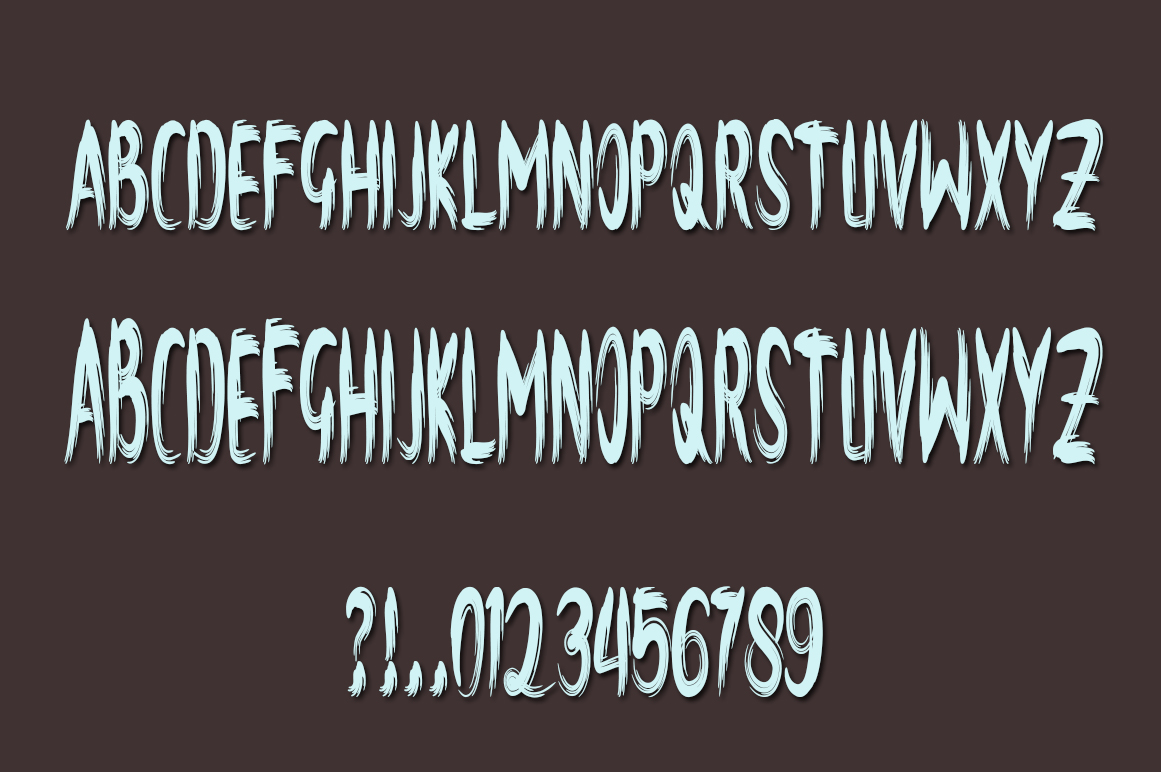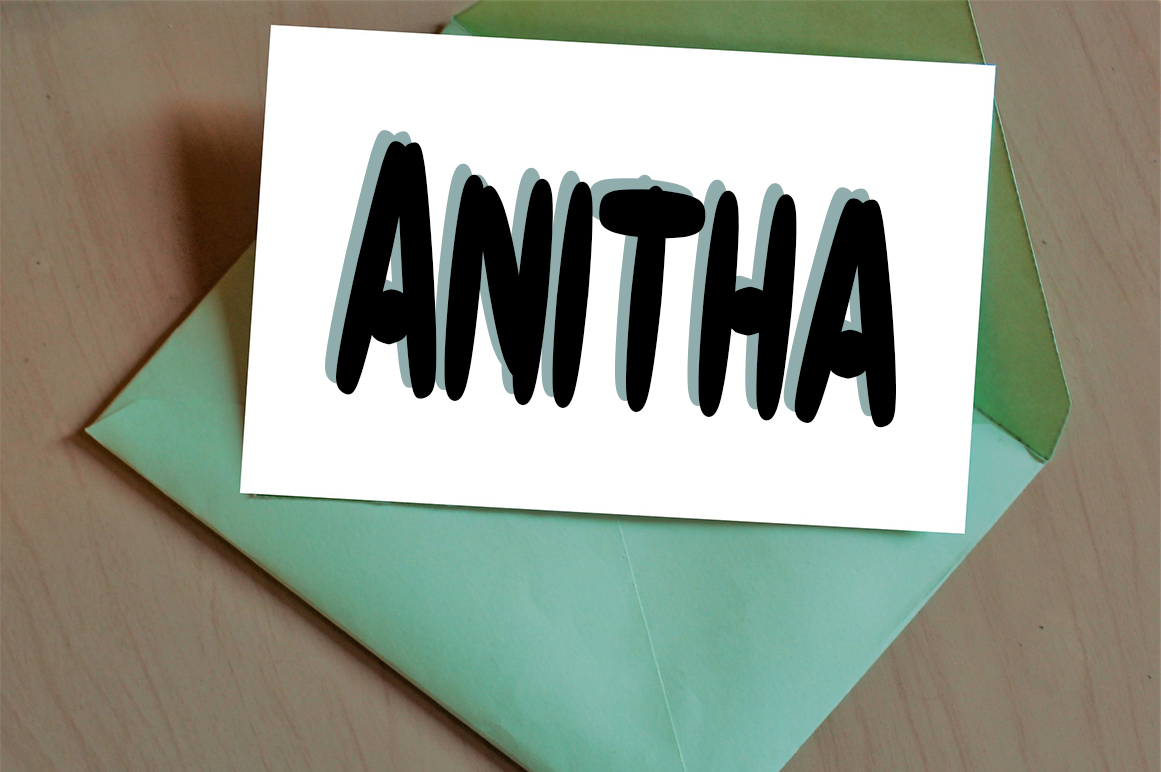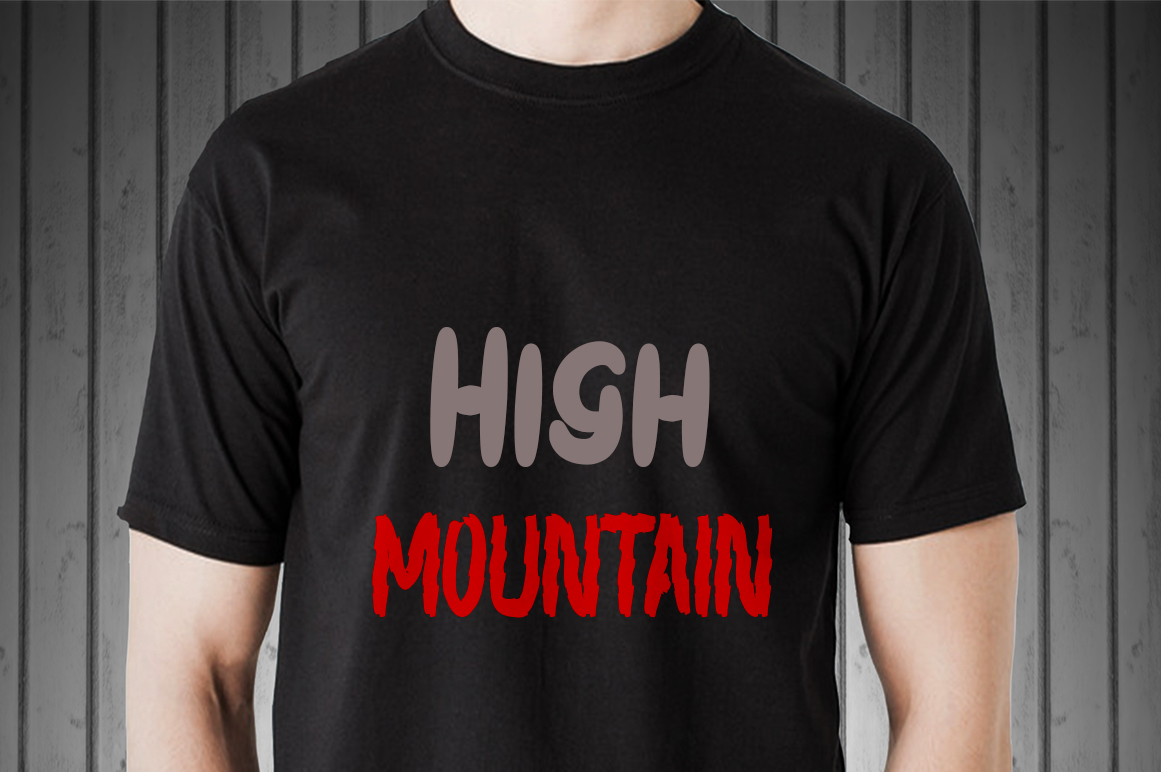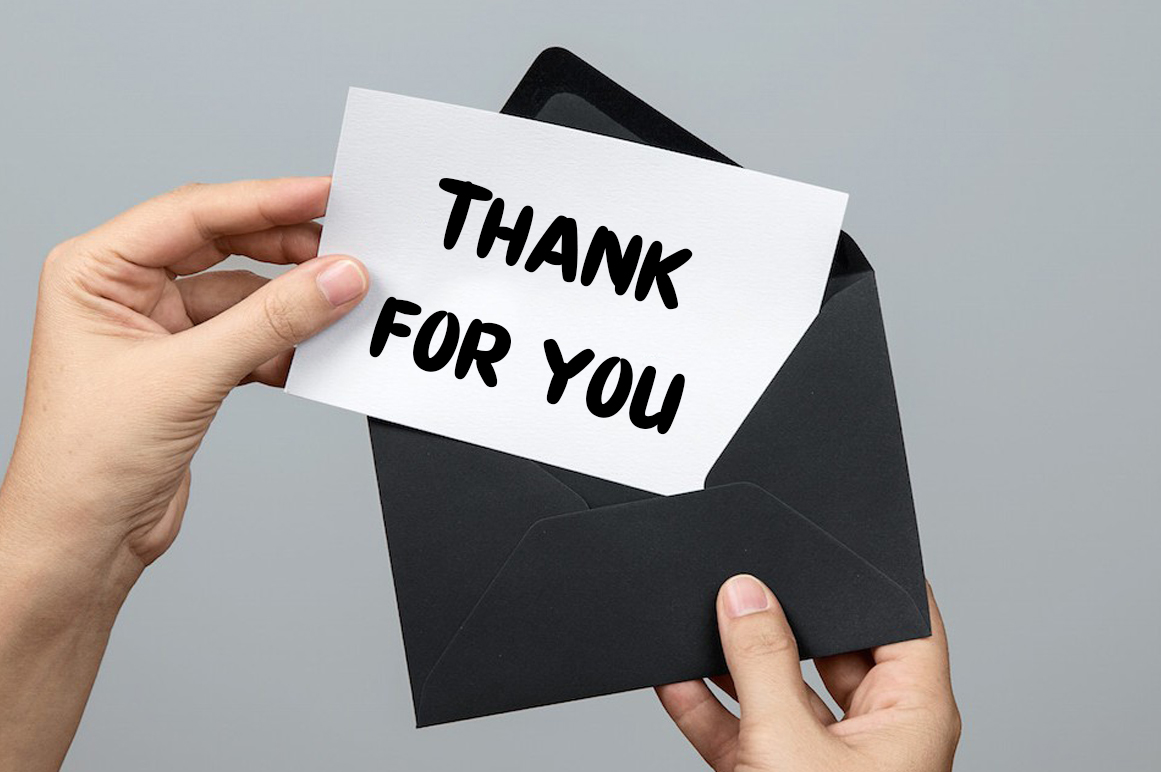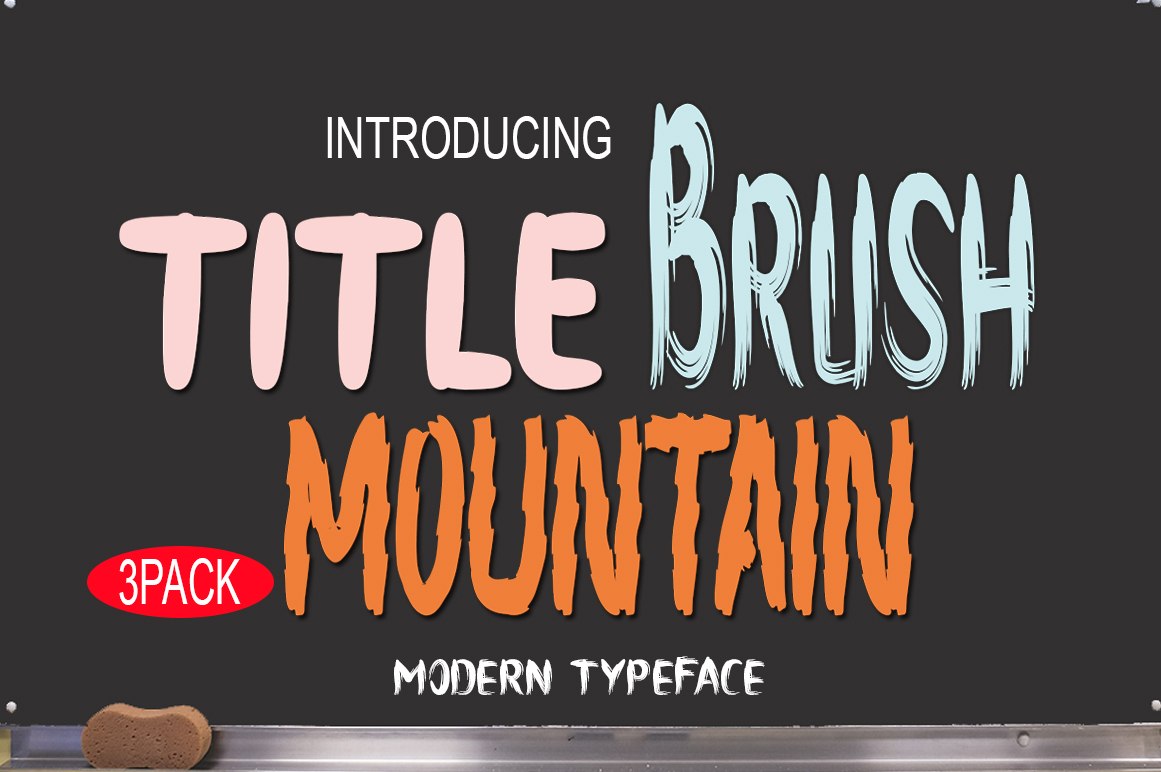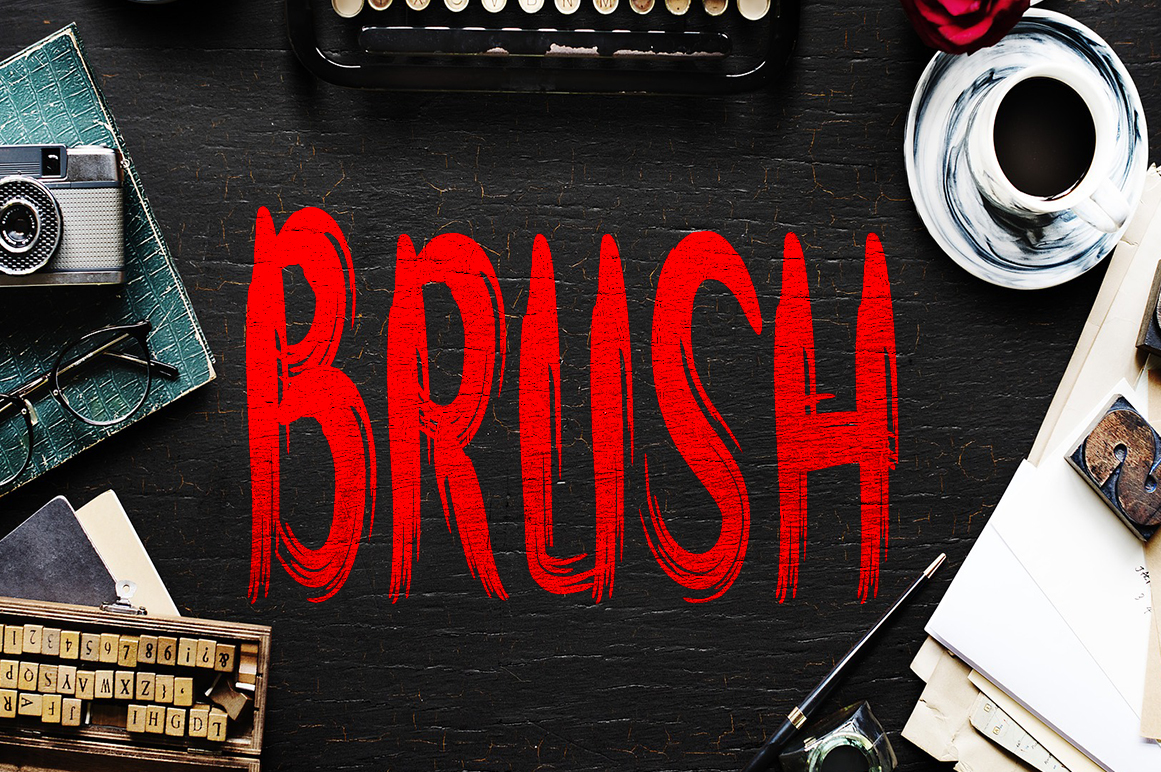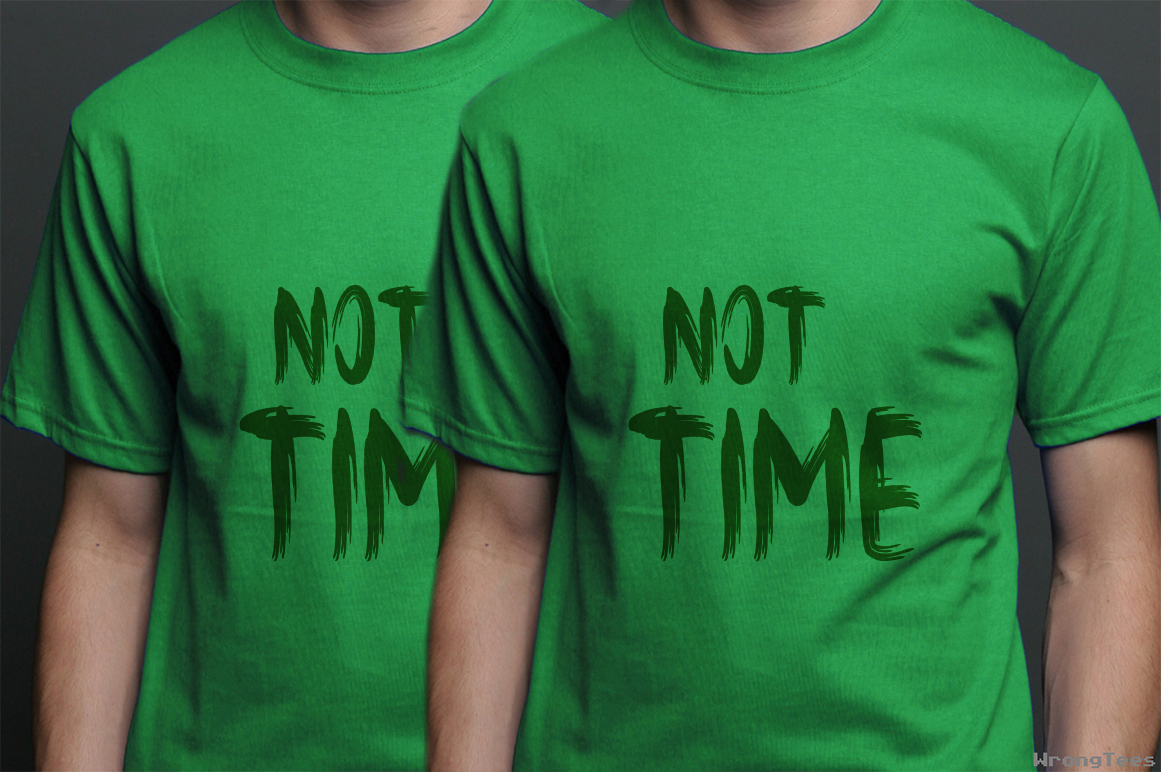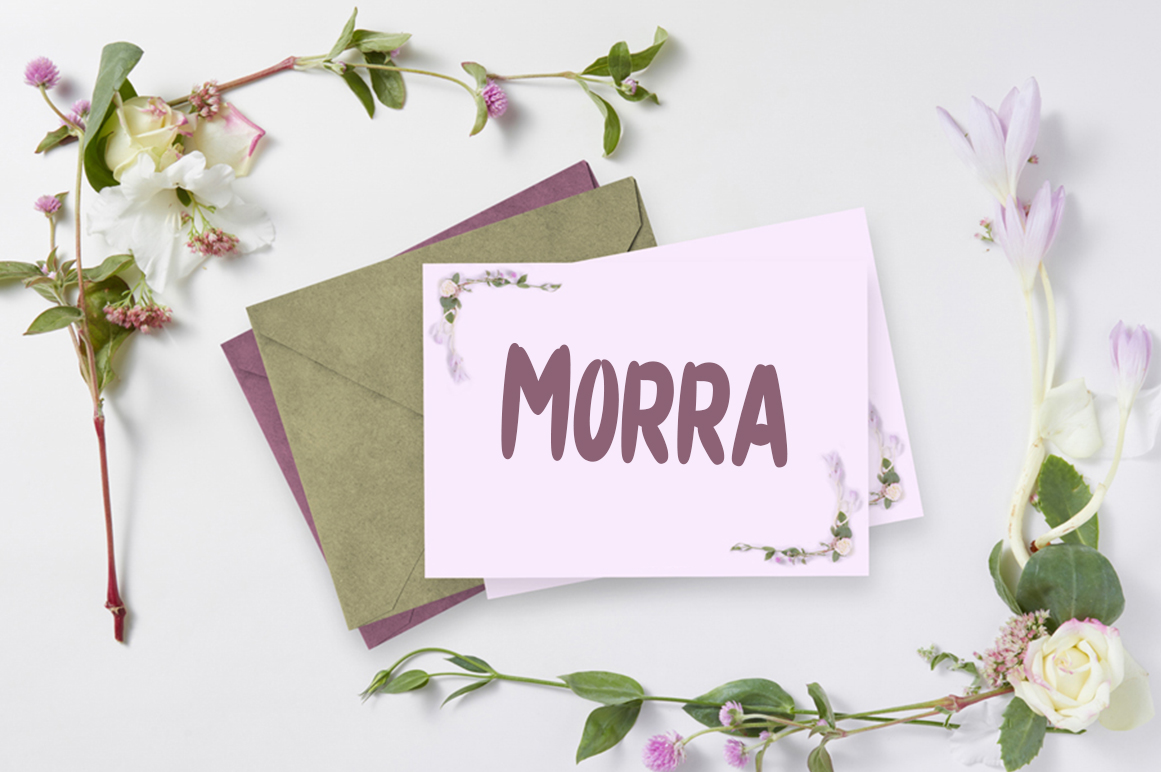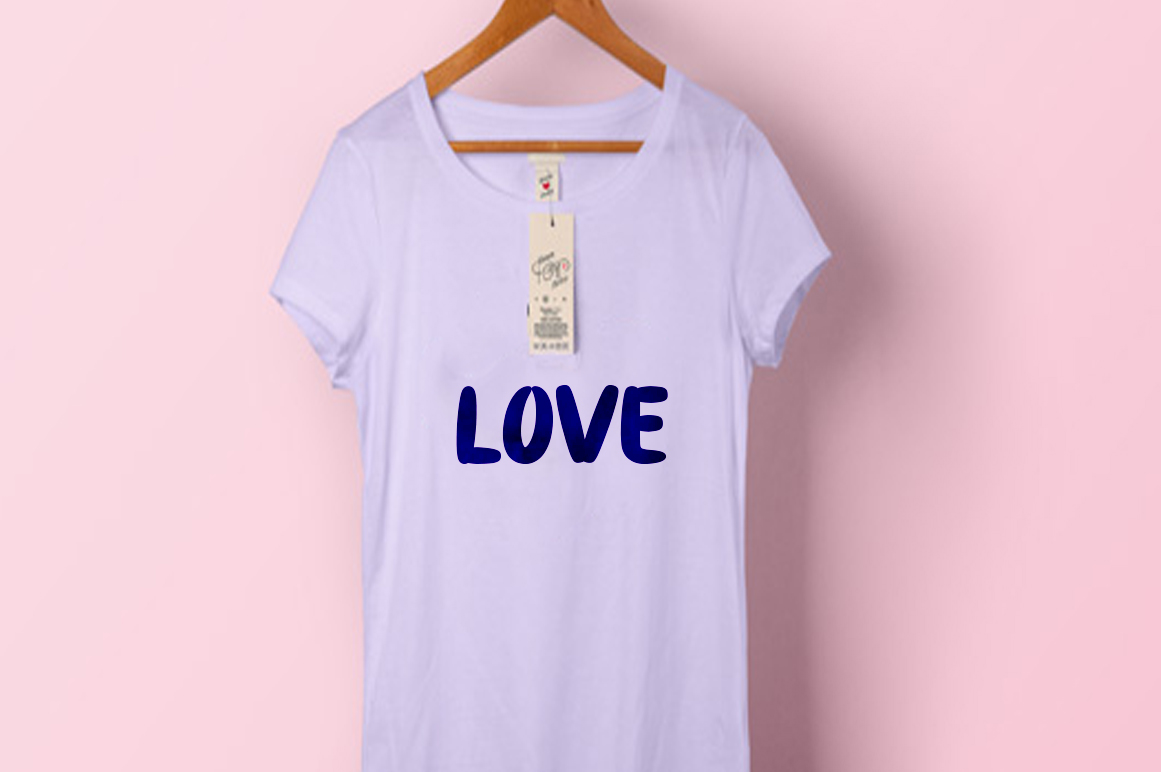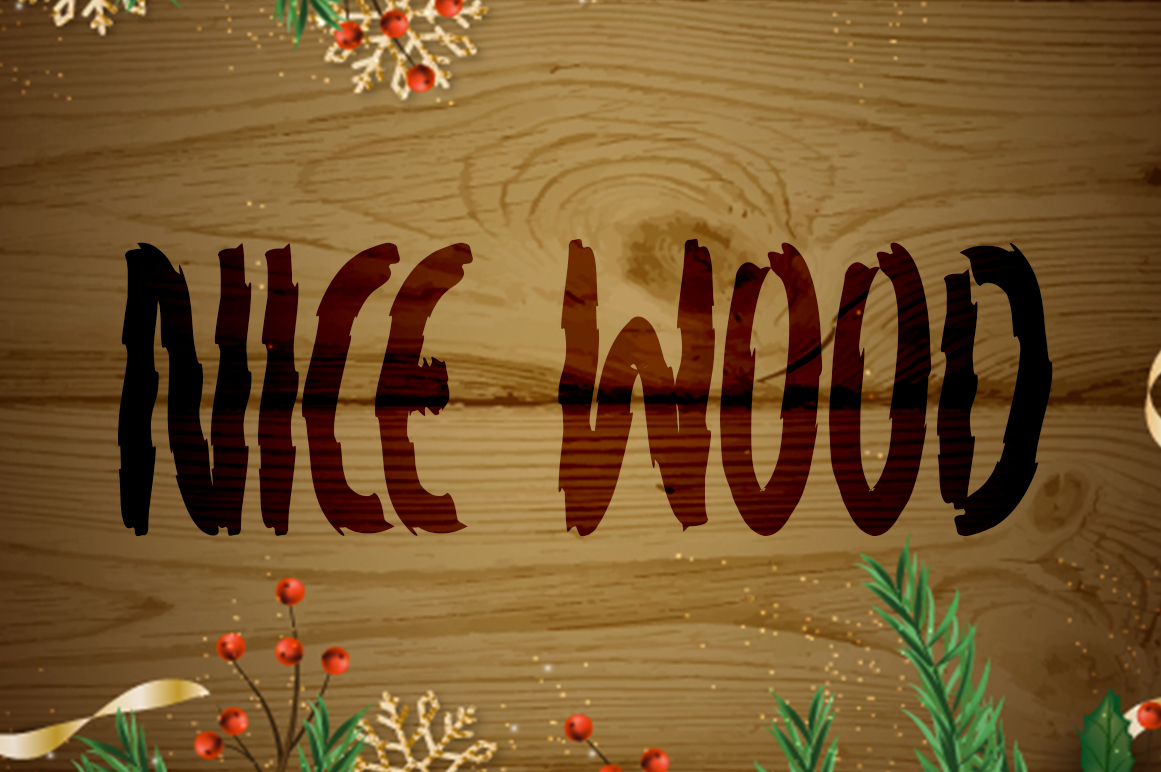
The Distro Font
About The Distro Font
The Distro is a new and modern font, solid and well-weighted for maximum legibility and appeal. This all caps font comes with a few extras so you can design with the ability to customize and make your projects wholly unique.